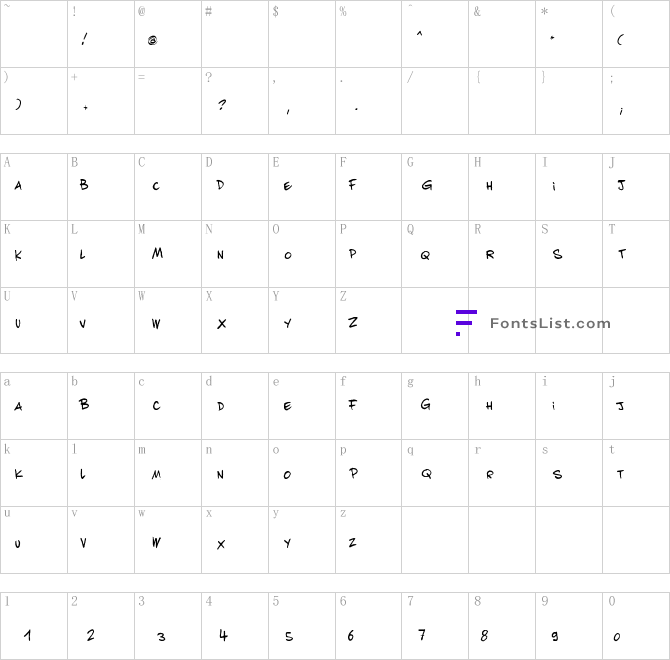
- Font Name:achille nzoda
achille-nzoda.ttf is a very beautiful artistic font, achille-nzoda.ttf is widely used in the design and printing of various books and pictures,achille-nzoda.ttf has a strong visual impact,achille-nzoda.ttf is a commonly used font in newspapers, magazines and books, and is used in posters, e-commerce Poster design, store design, logo design, font design and other fields.achille-nzoda.